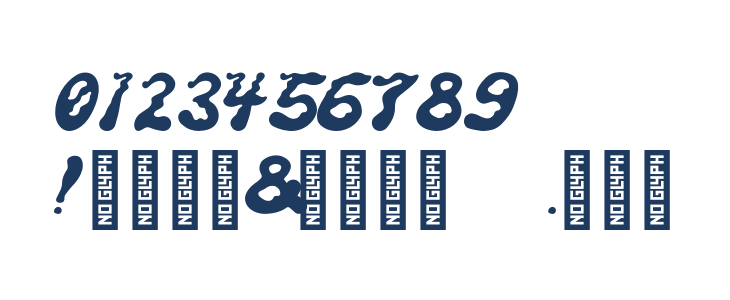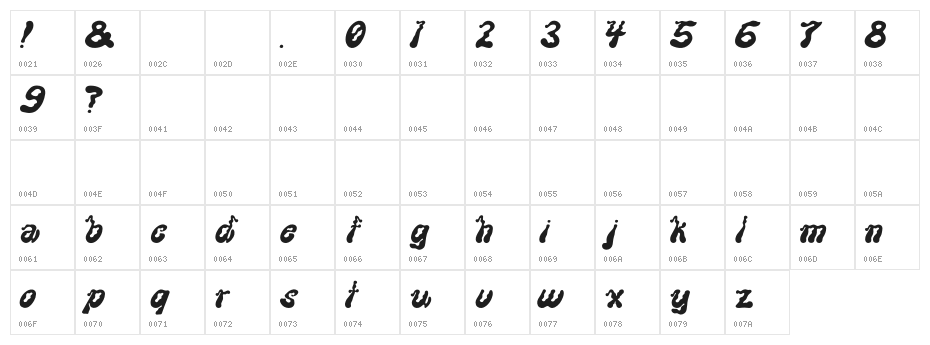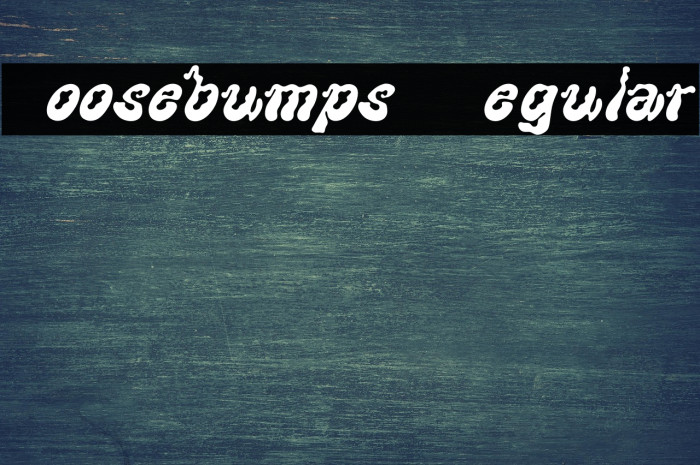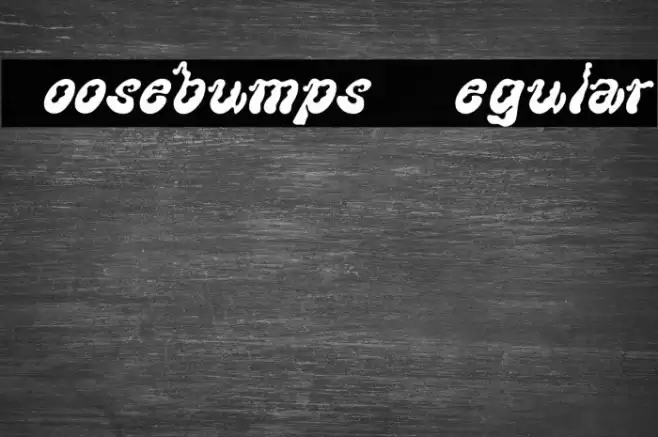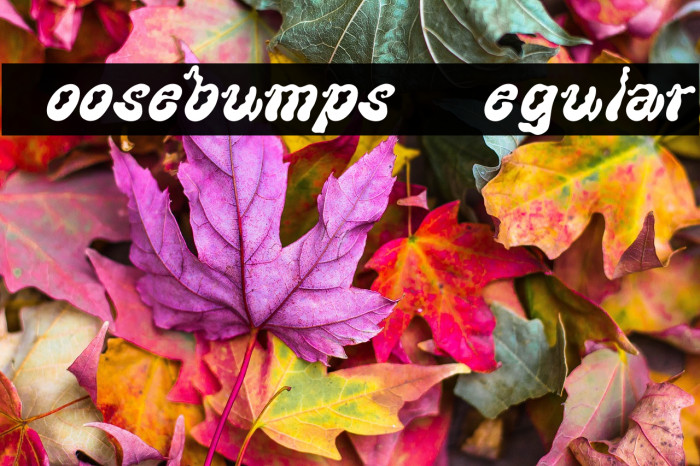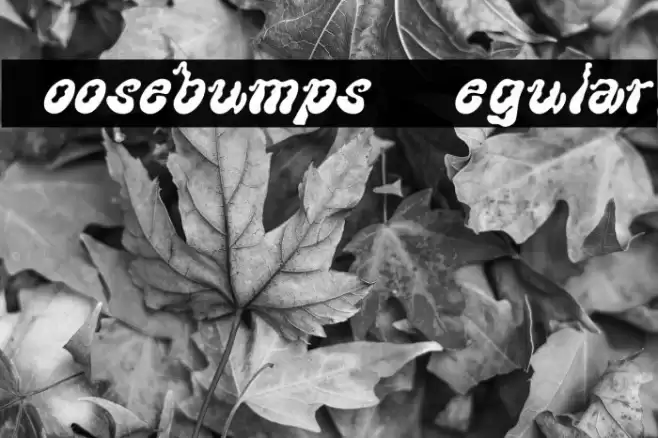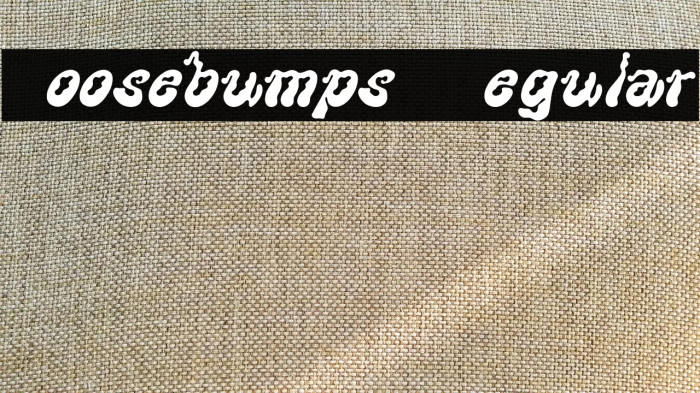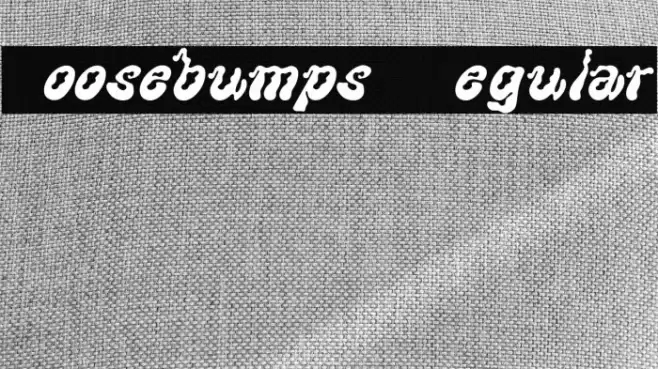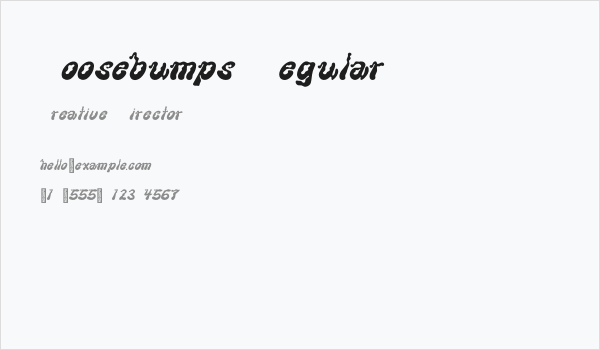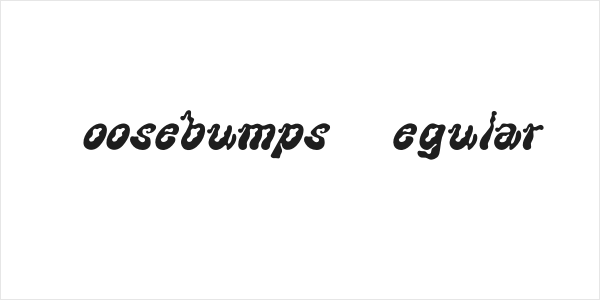
Goosebumps Regular Font
Goosebumps Regular Description
This font features a playful and eerie style, reminiscent of classic horror themes. The letters have a dripping effect, giving them a spooky, liquid-like appearance. The strokes are bold and irregular, creating a sense of movement and unpredictability. This font is perfect for capturing a Halloween or horror-themed aesthetic. The characters are well-spaced, ensuring readability despite their unique design. The numbers and special characters maintain the same dripping style, adding to the cohesive look of the font.
| Proposed Projects | Ideal for Halloween posters, horror movie titles, themed party invitations, and spooky merchandise designs. |